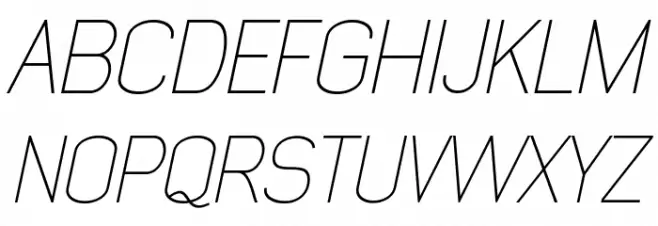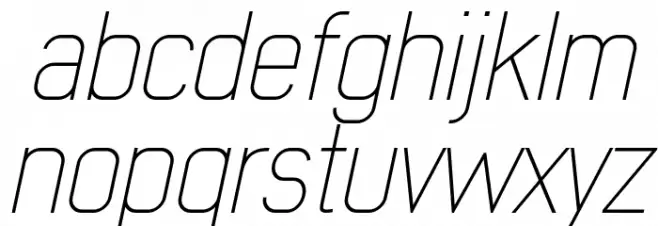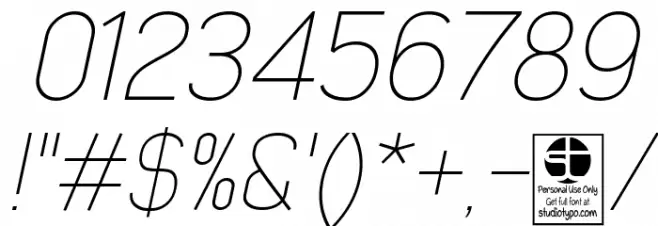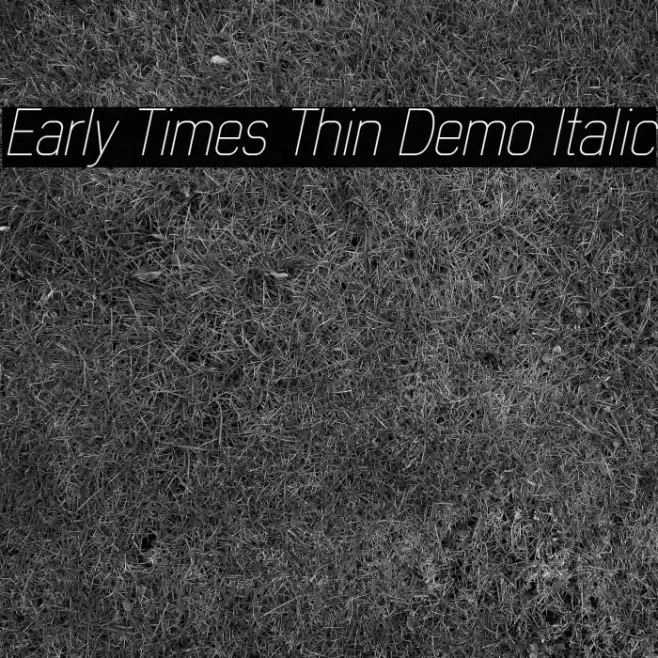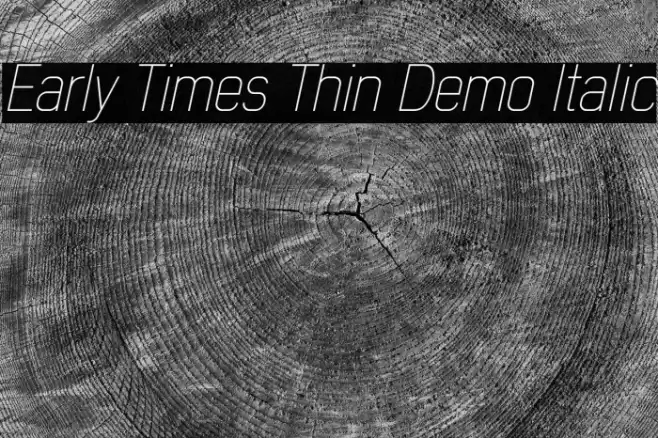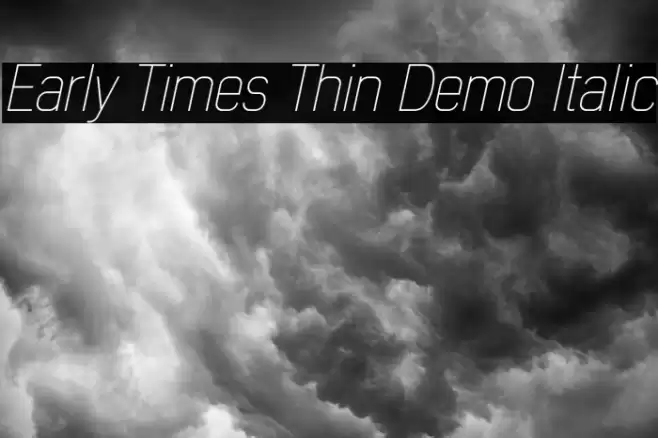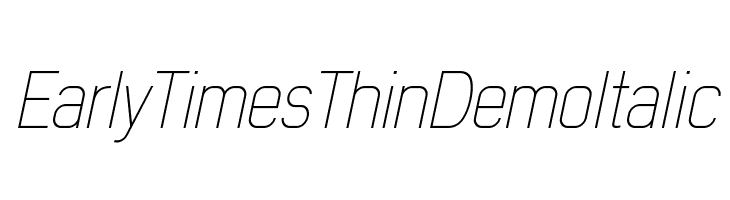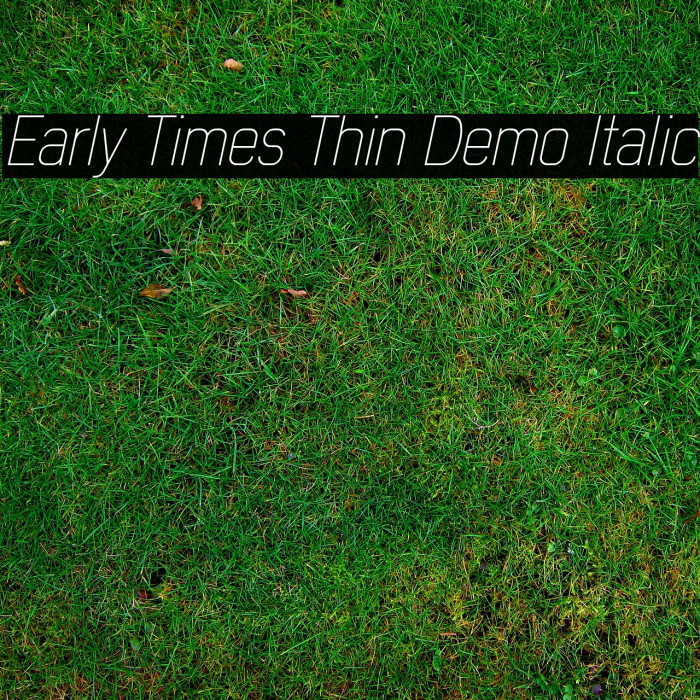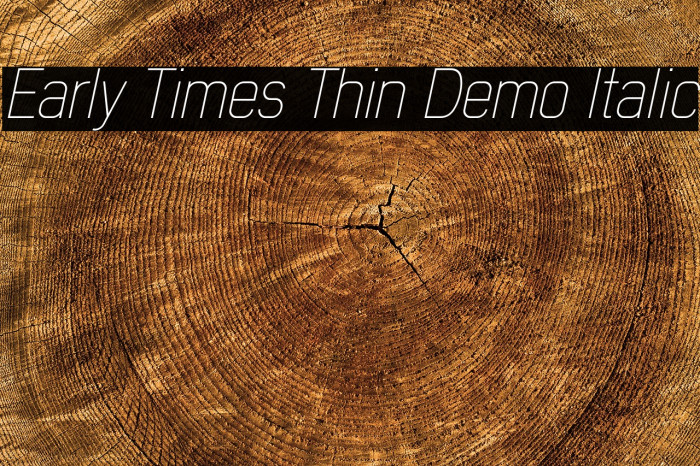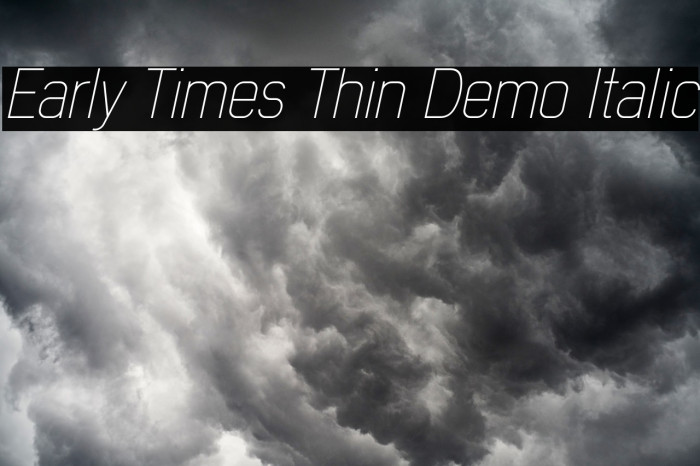
Early Times Thin Demo Italic
This typeface features a sleek and modern design with a thin, italicized style that exudes elegance and sophistication. The characters are elongated with a slight slant, giving a sense of motion and fluidity. The uppercase letters maintain a consistent height, while the lowercase letters are proportionally smaller, enhancing readability. The numerals are clear and distinct, matching the overall aesthetic of the alphabet. Special characters are included, maintaining the same thin and italicized style, ensuring uniformity across all glyphs. This font is ideal for projects that require a contemporary and stylish look.
A sleek, thin, and italicized typeface with a modern and elegant style.
- Proposed Projects: Ideal for fashion magazines, luxury branding, modern websites, and elegant invitations.
- Weight: Light
- Use Case: Headlines, Logos, Invitations